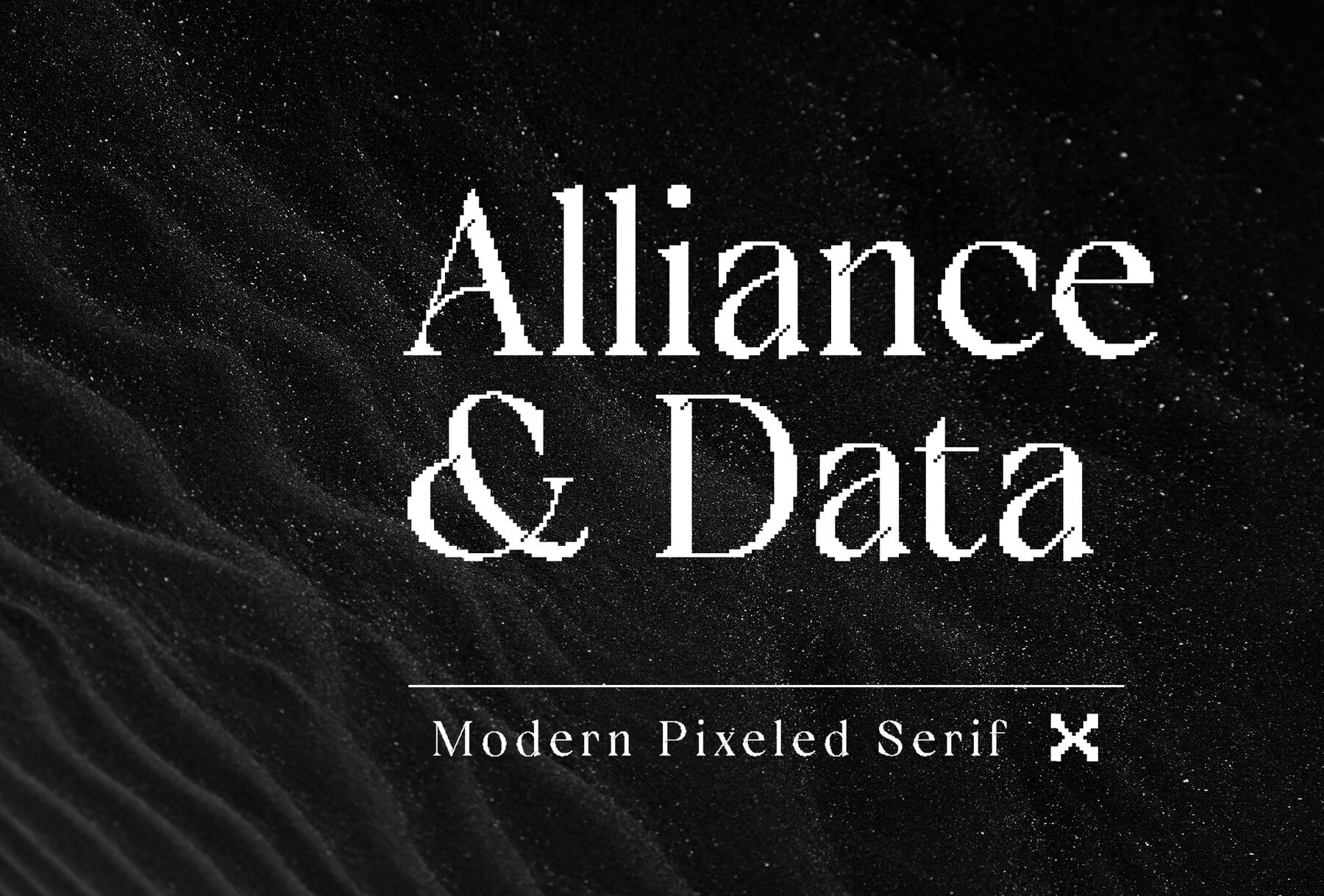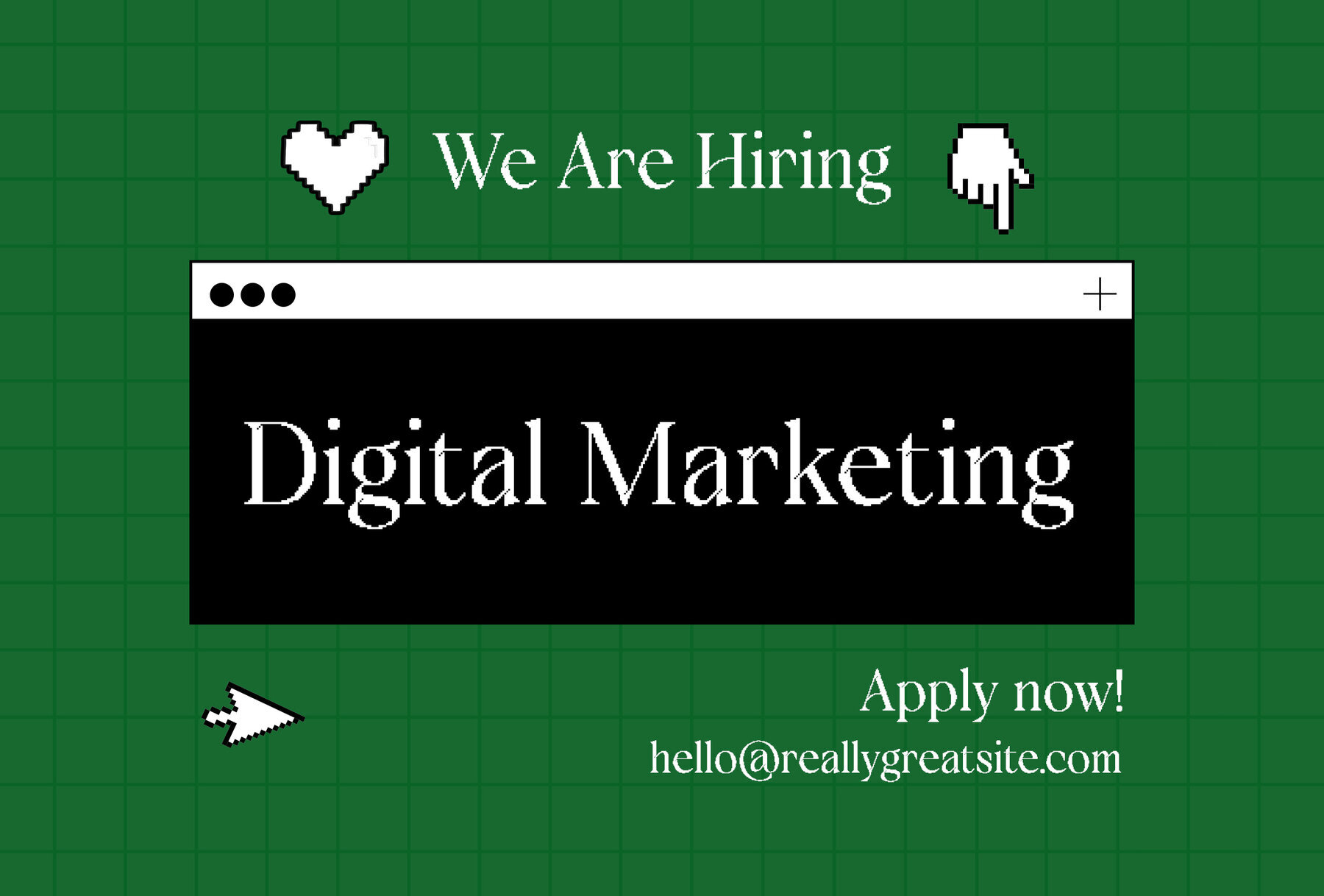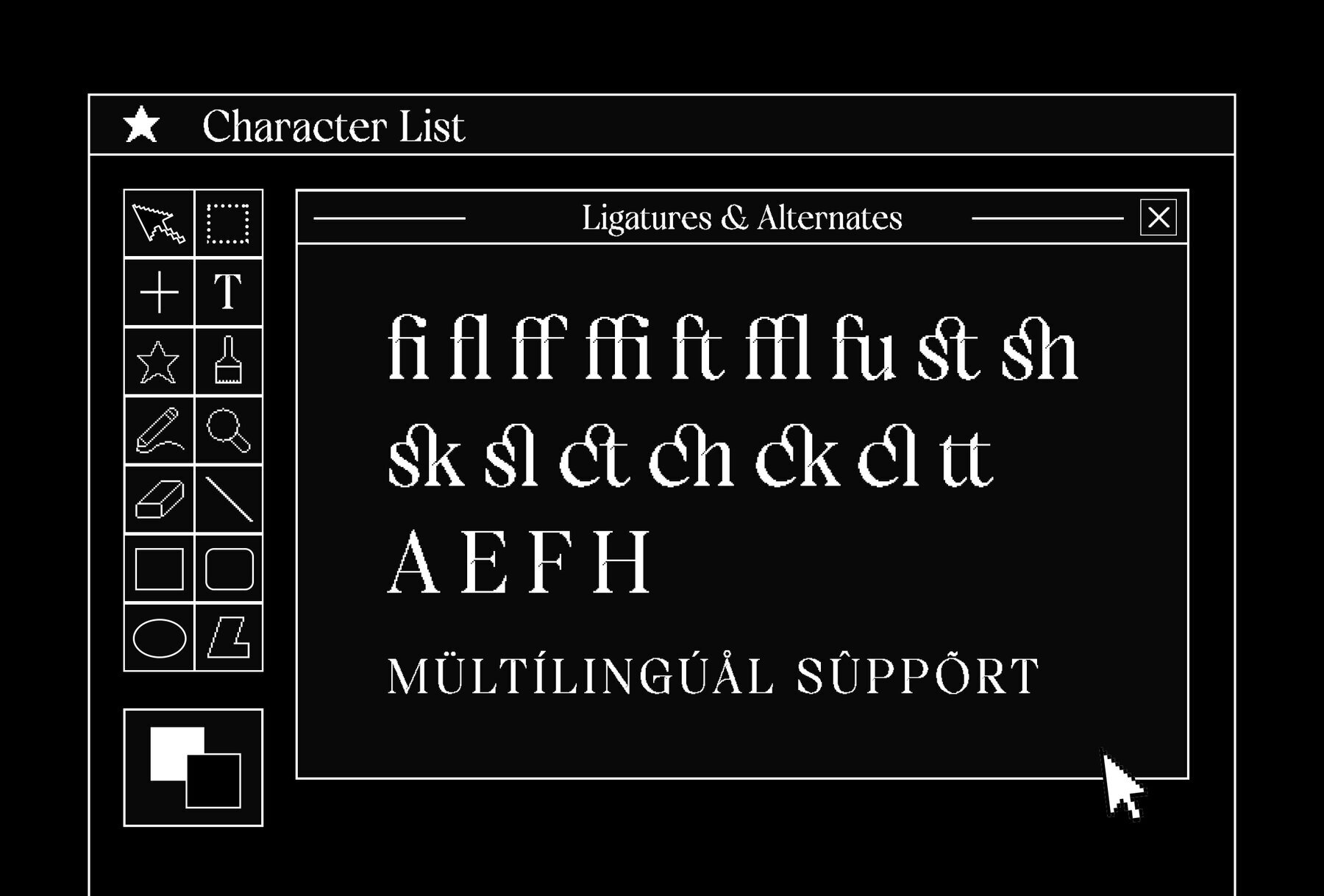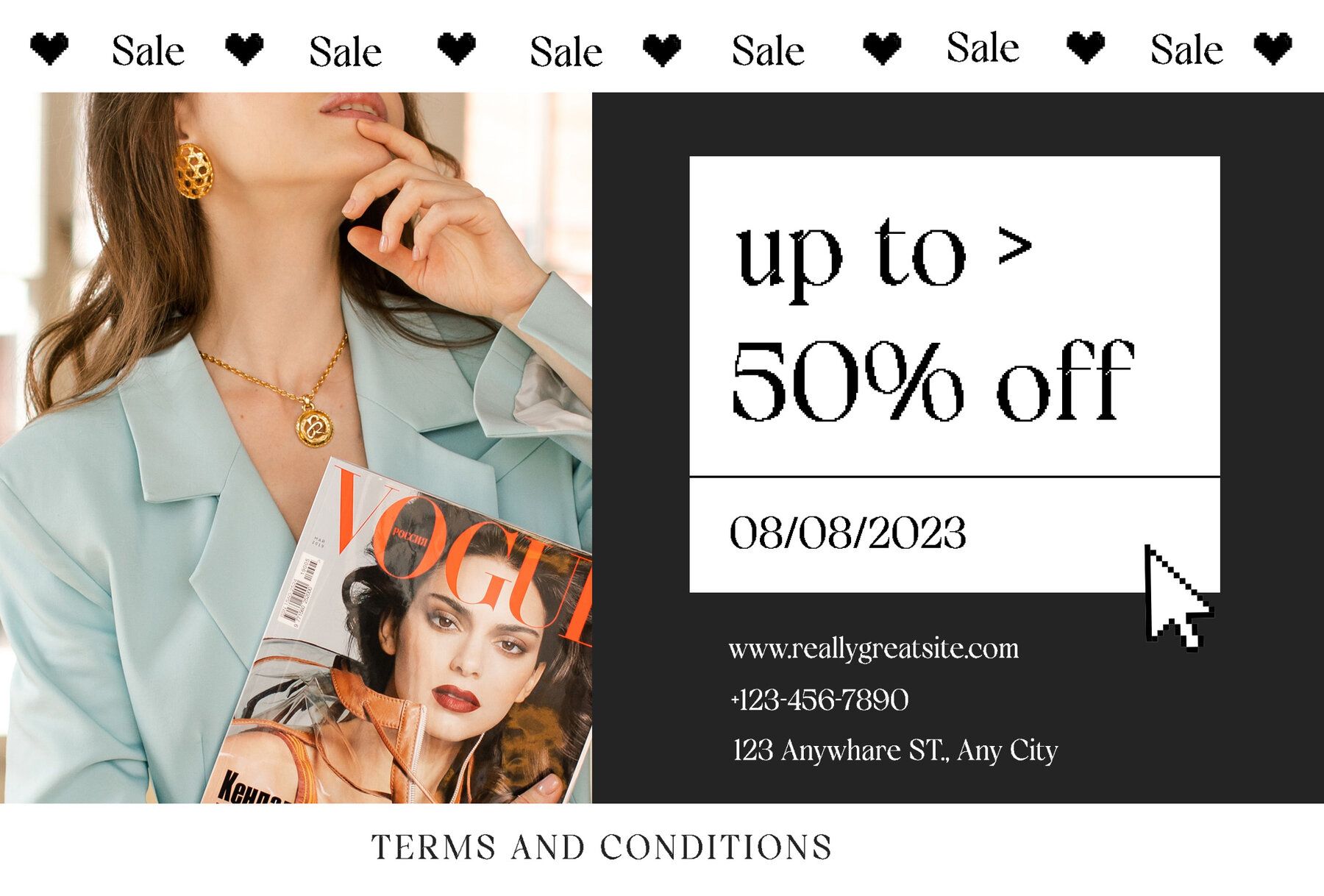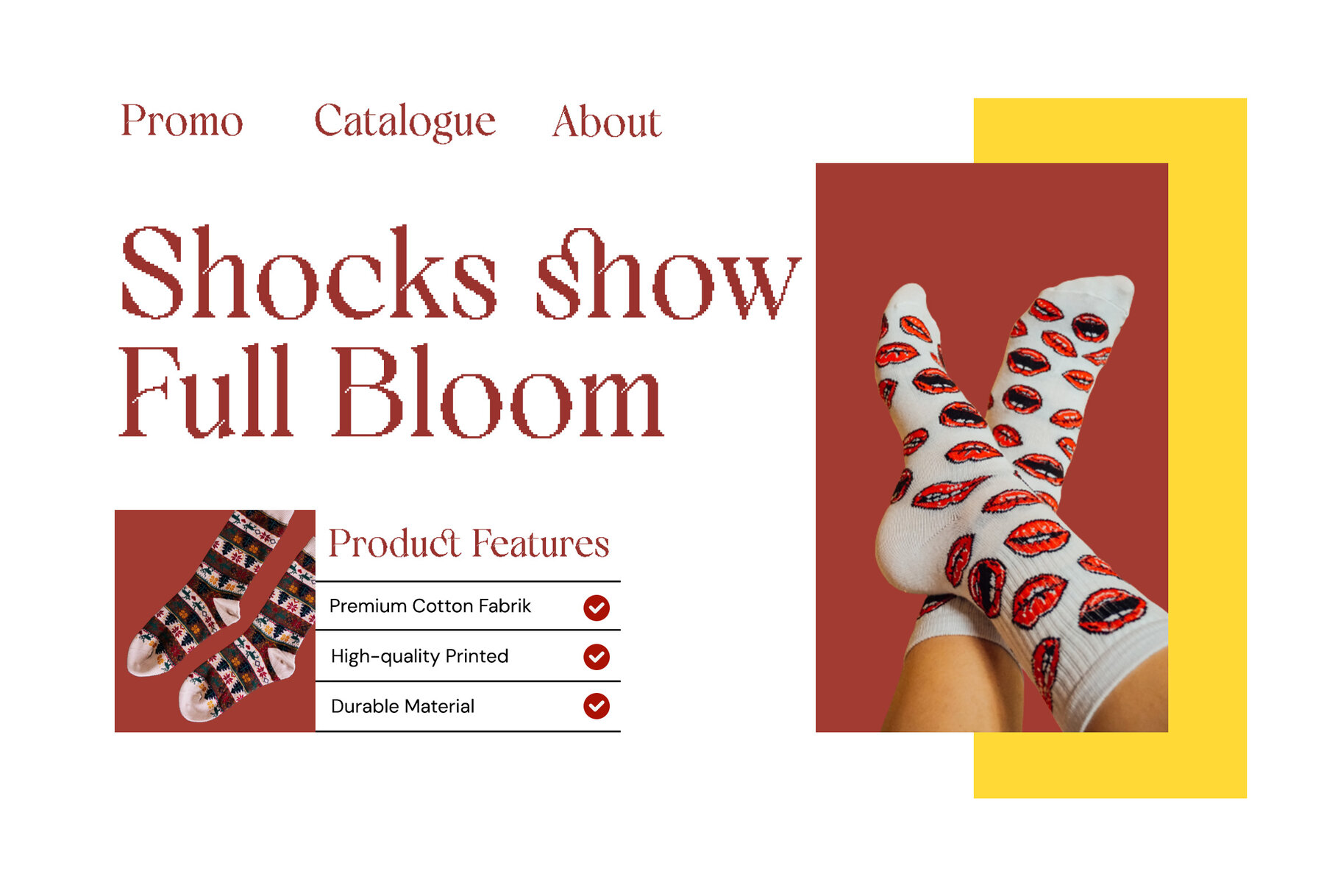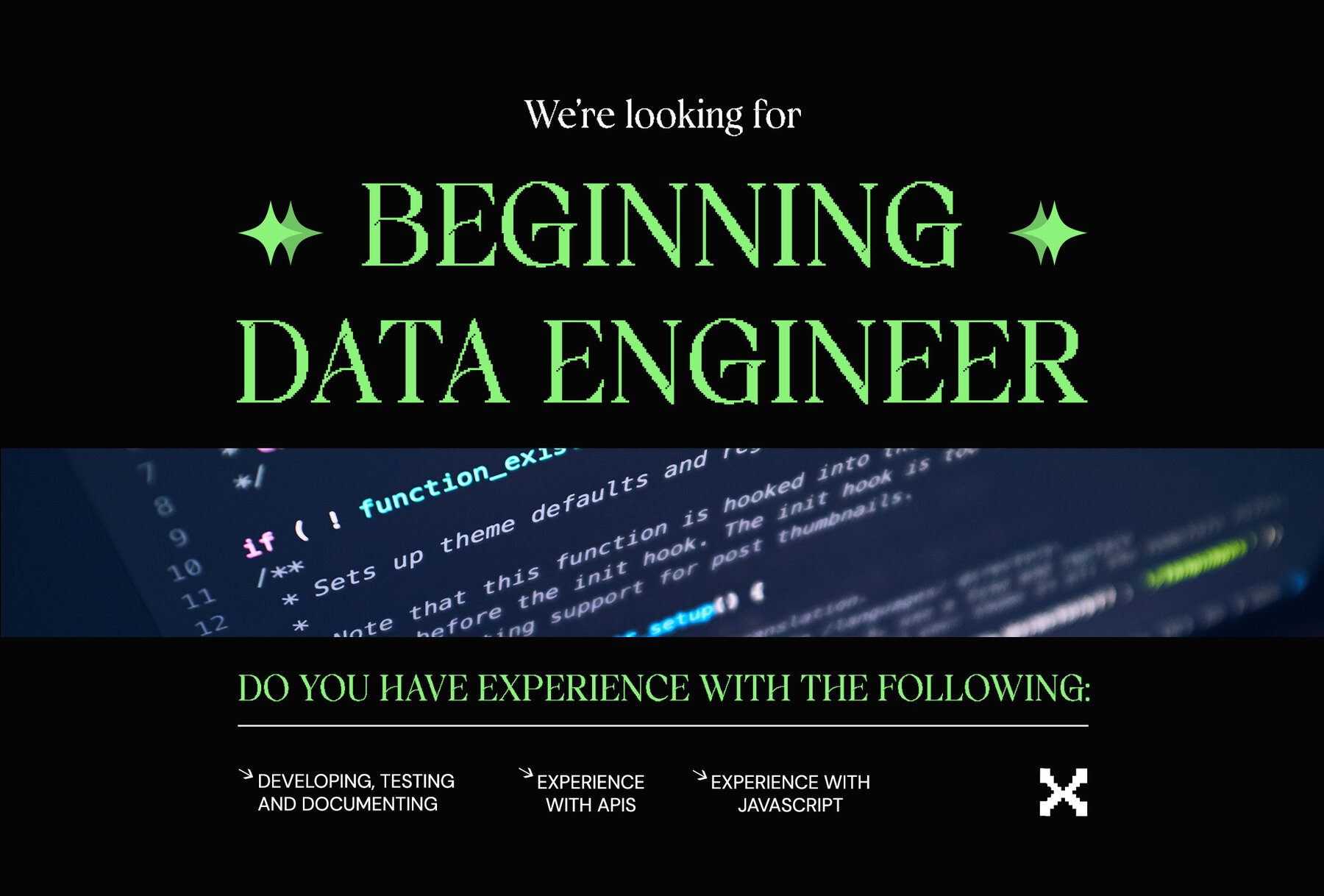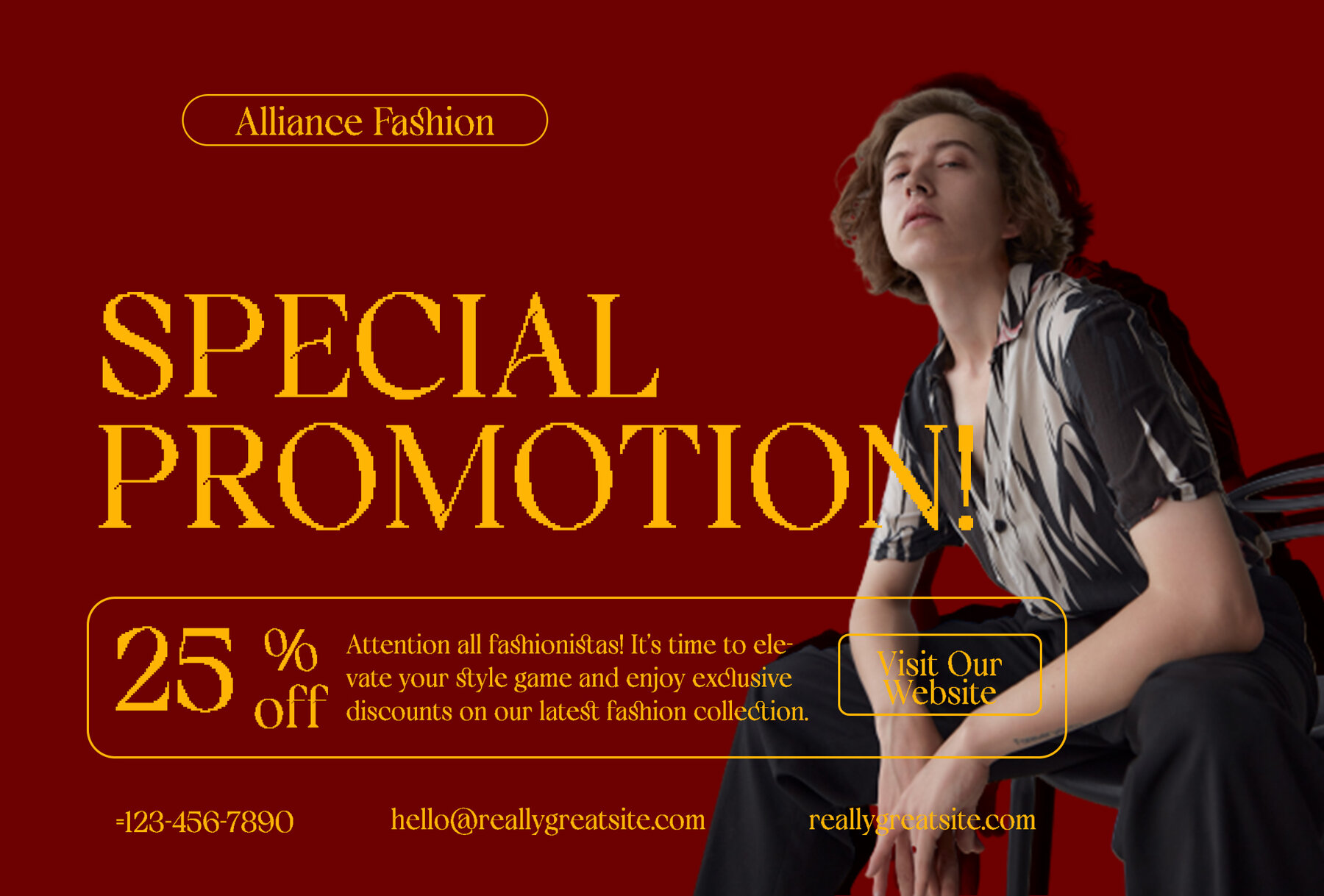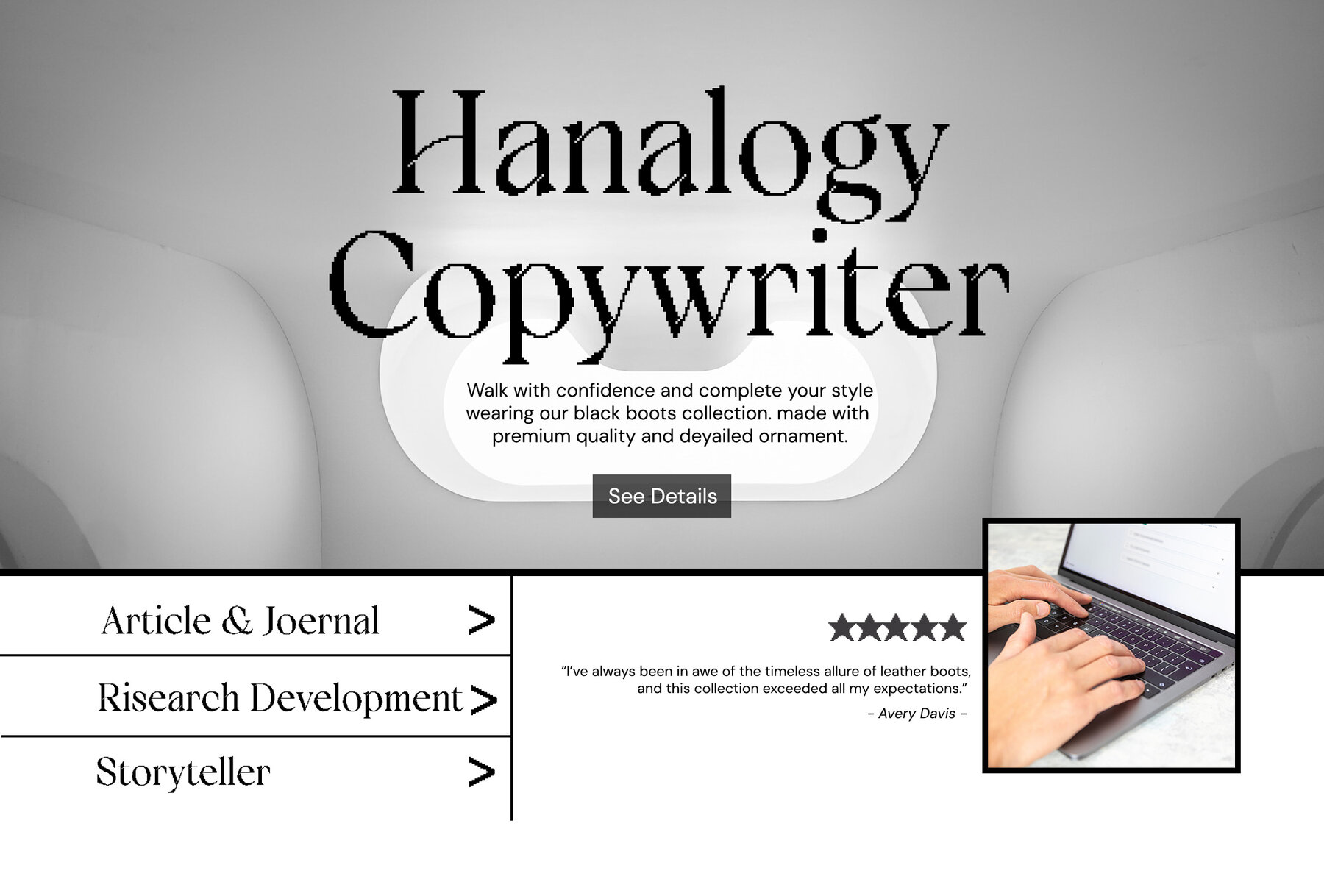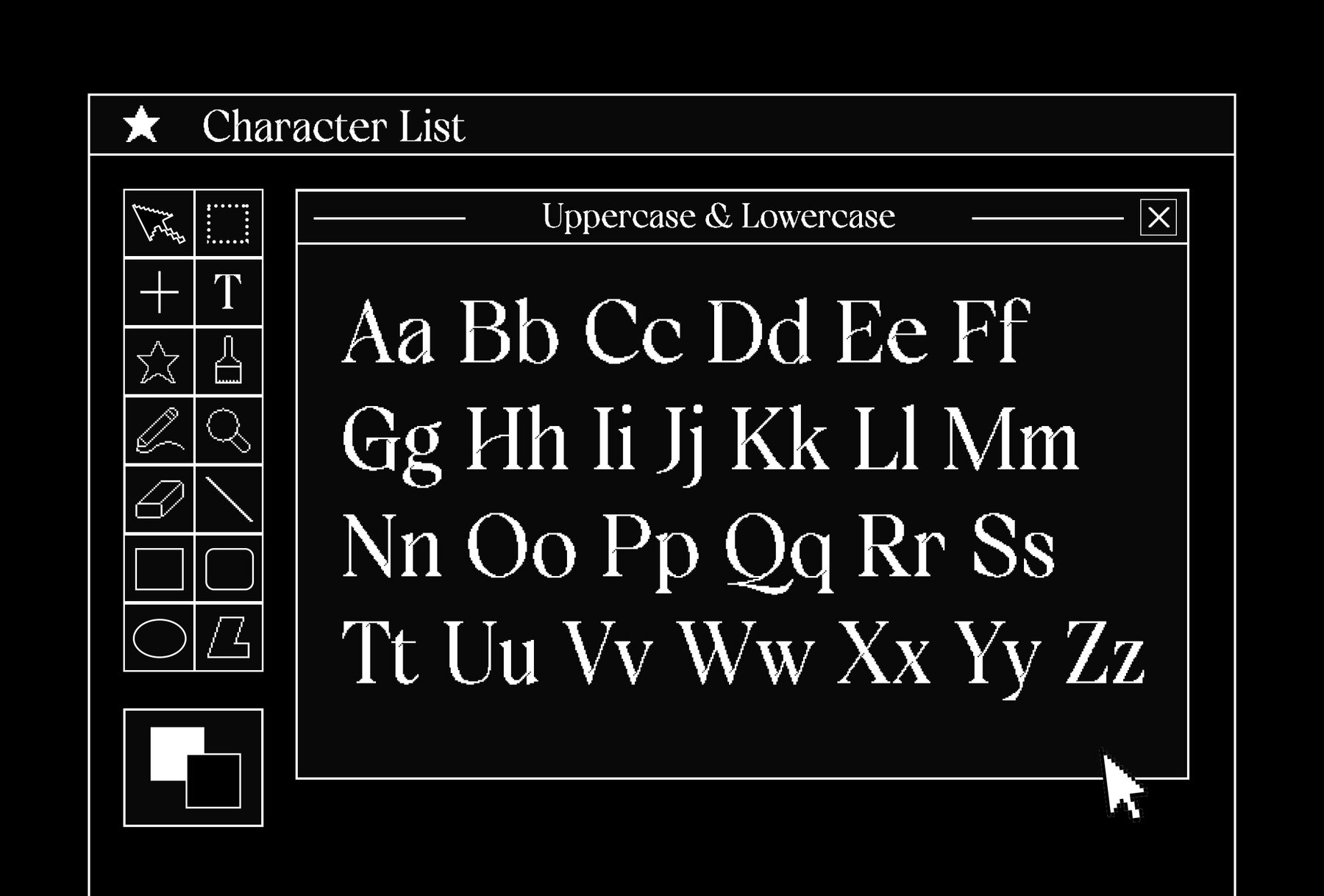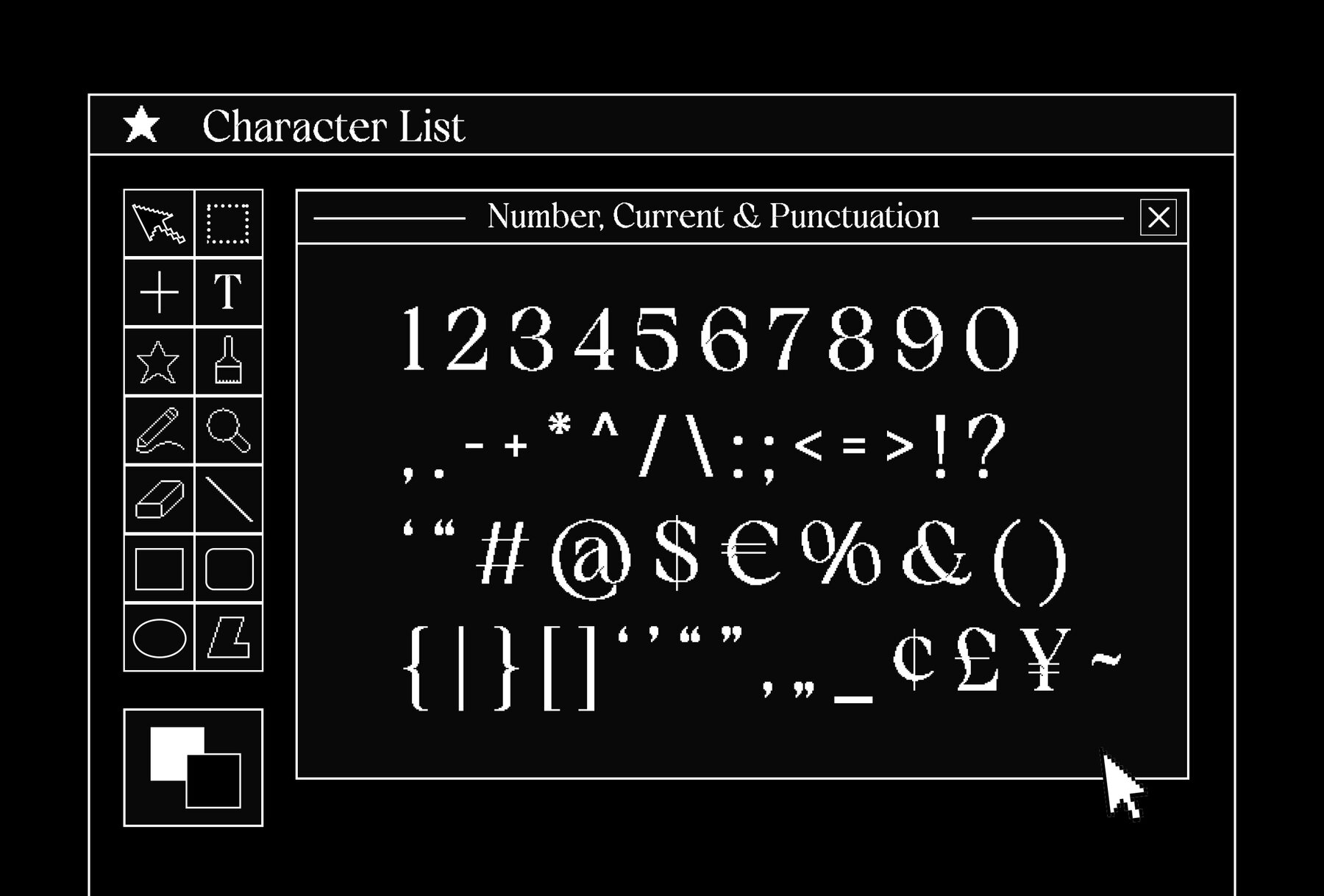
Unveil the Fusion: Where Modernity Meets Pixel Art in Alliance & Data
Alliance & Data is an innovative Serif font that beautifully marries modern design with pixelated charm. Its versatile application spans across diverse creative realms such as branding, web design, gaming interfaces, and various artistic projects. Boasting distinctive features like ligatures and alternates, this font showcases expertise by seamlessly blending contemporary aesthetics with nostalgic pixel elements, offering a dynamic toolset for creative expression.